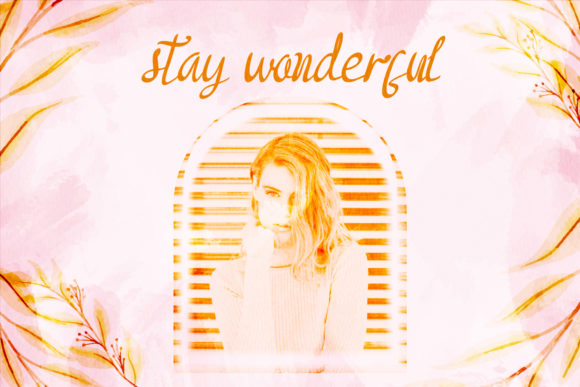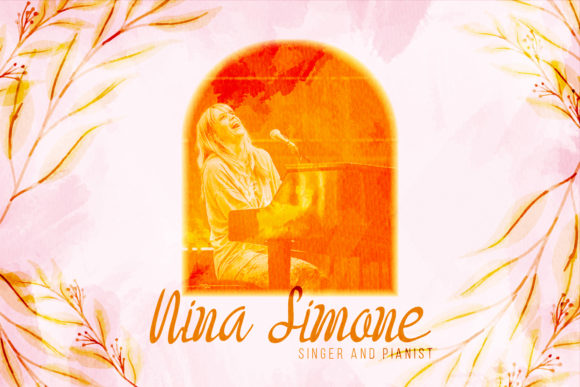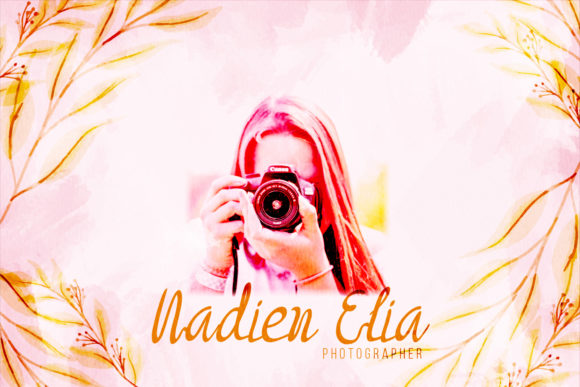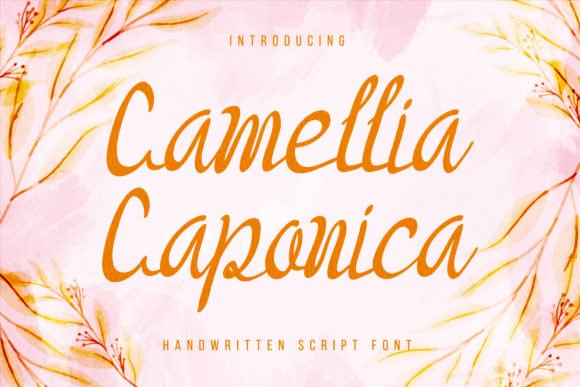
Introduction to Camellia Caponica Font
Camellia Caponica is a sweet and cursive handwritten font.
This gentle font will look gorgeous on a variety of design ideas It will add a joyful and romantic touch to each of your projects.
Key Features of Camellia Caponica Font